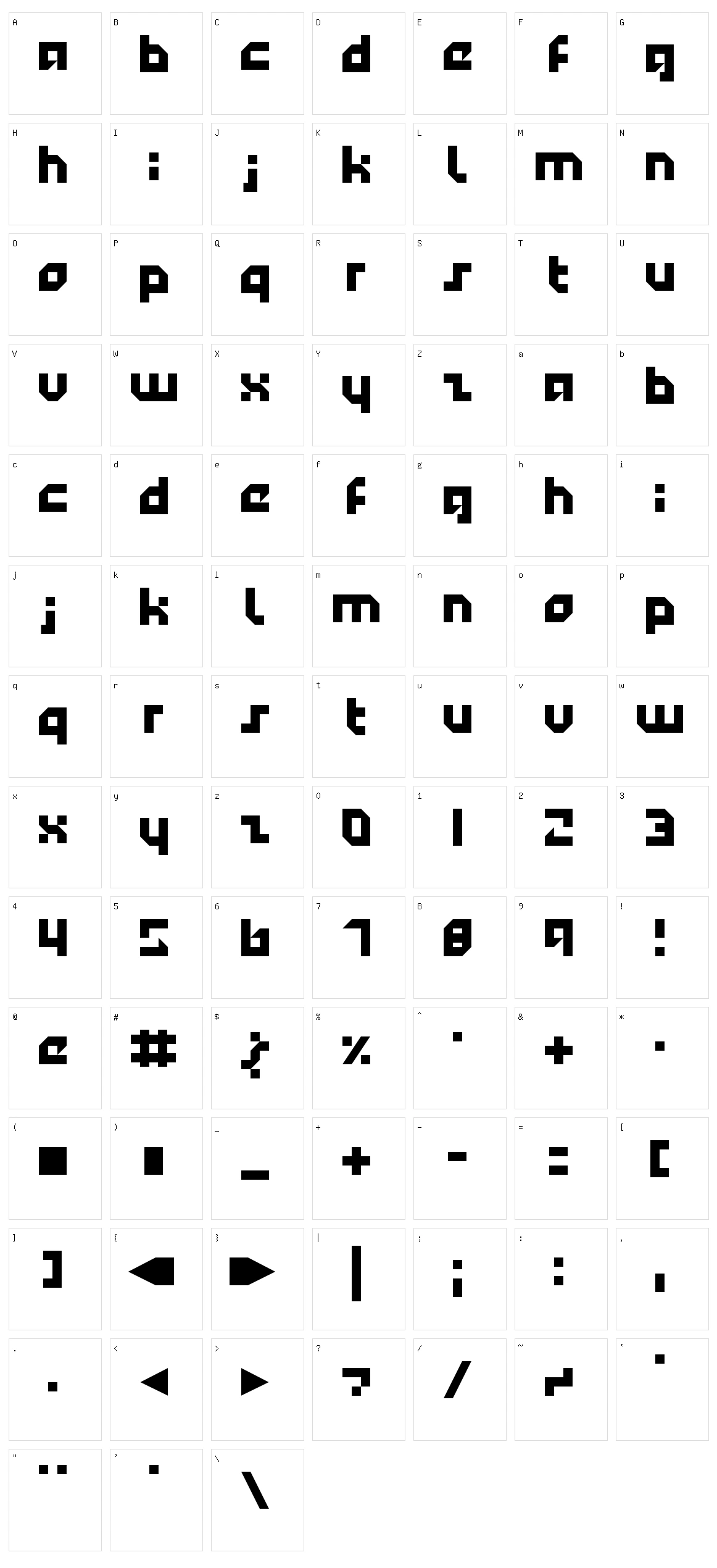
The free font Technotot is carefully designed by Hawtpixel, showcasing a thoughtful balance of creativity and usability and falls under the Square font style. When you download the ZIP file, it contains only 8.39 KB of font files, making it lightweight and quick to download. Please review the license details below to understand permitted usage and distribution rights. If license information is not available, we recommend using this font for personal projects only or contacting the author directly for commercial usage permissions.